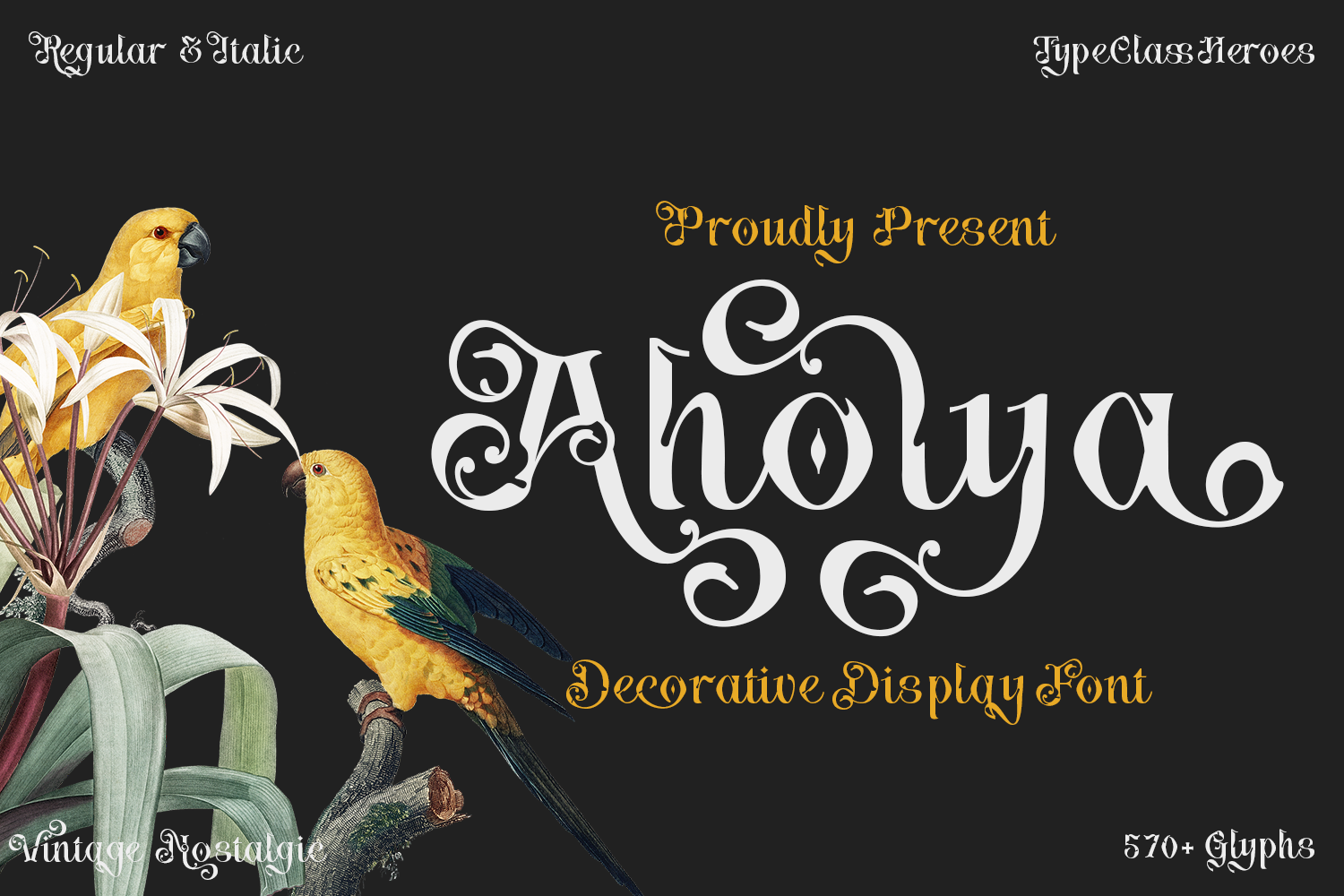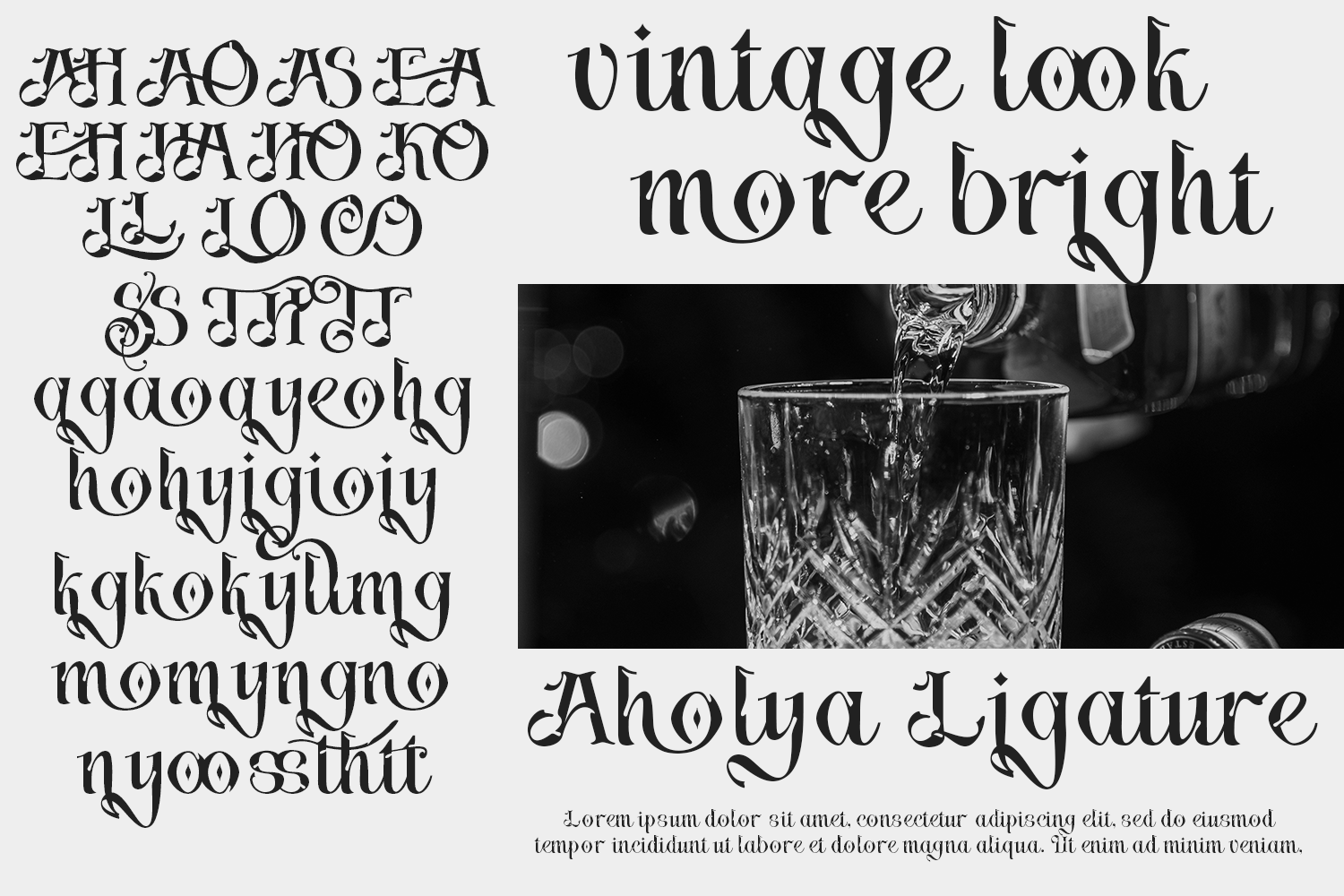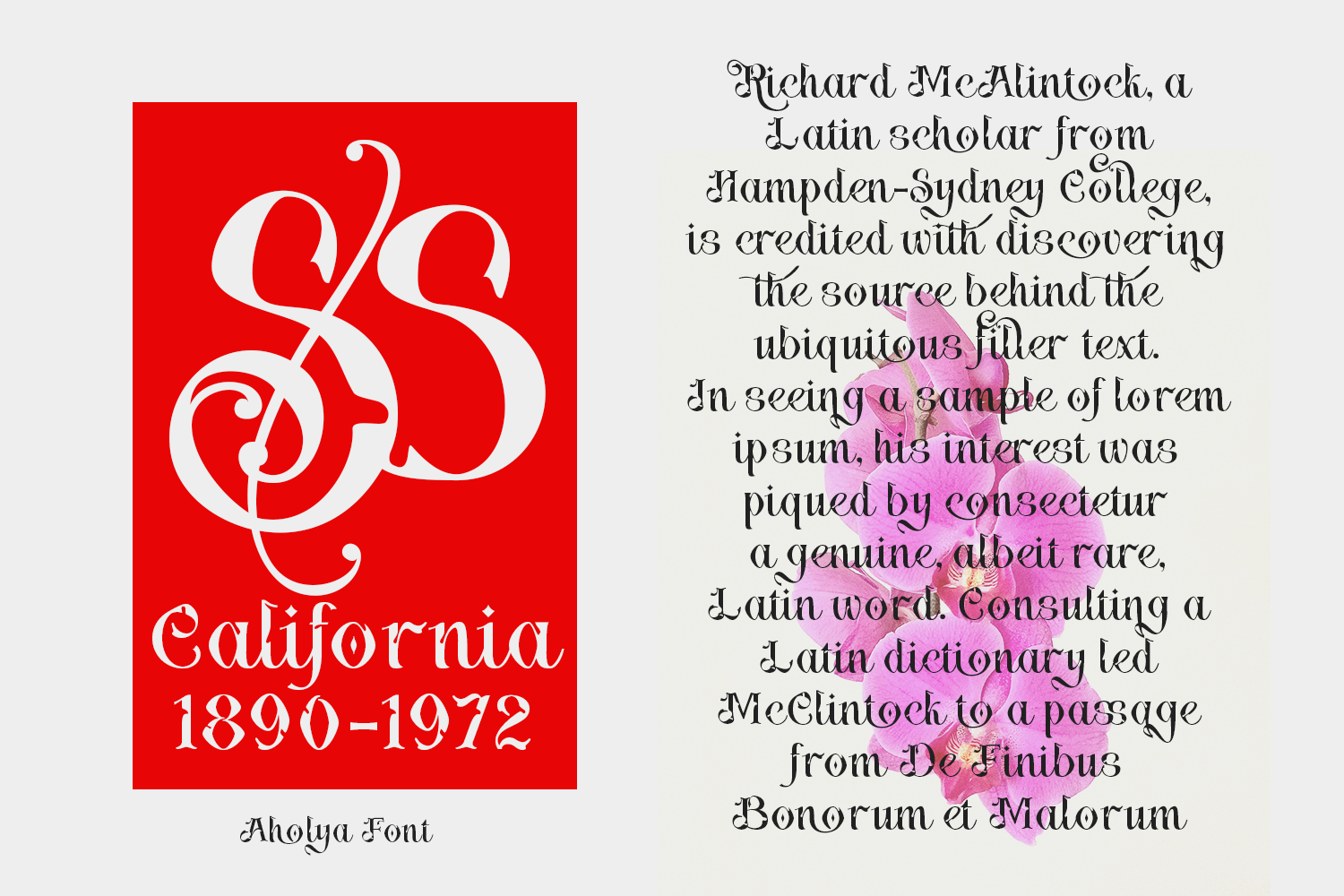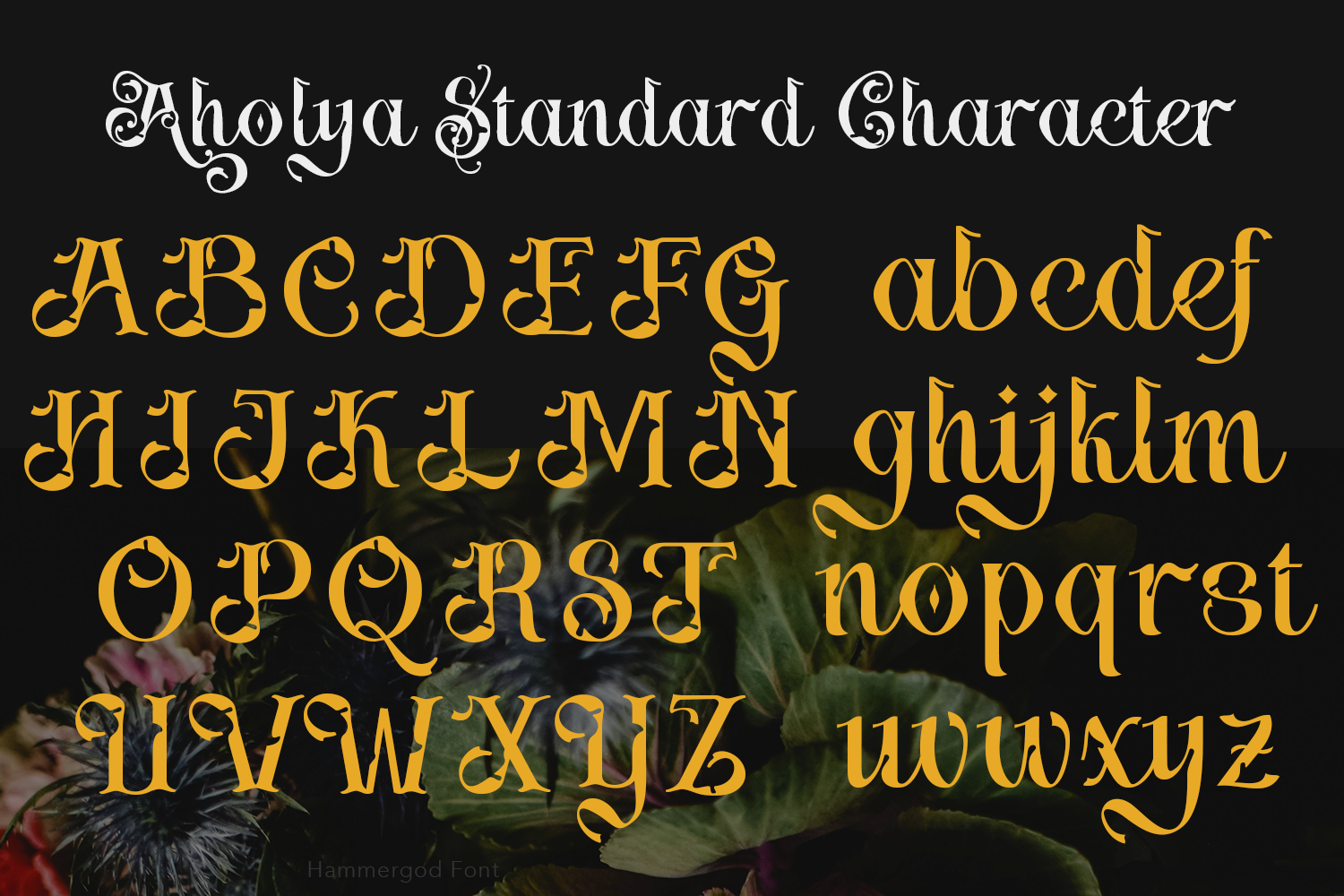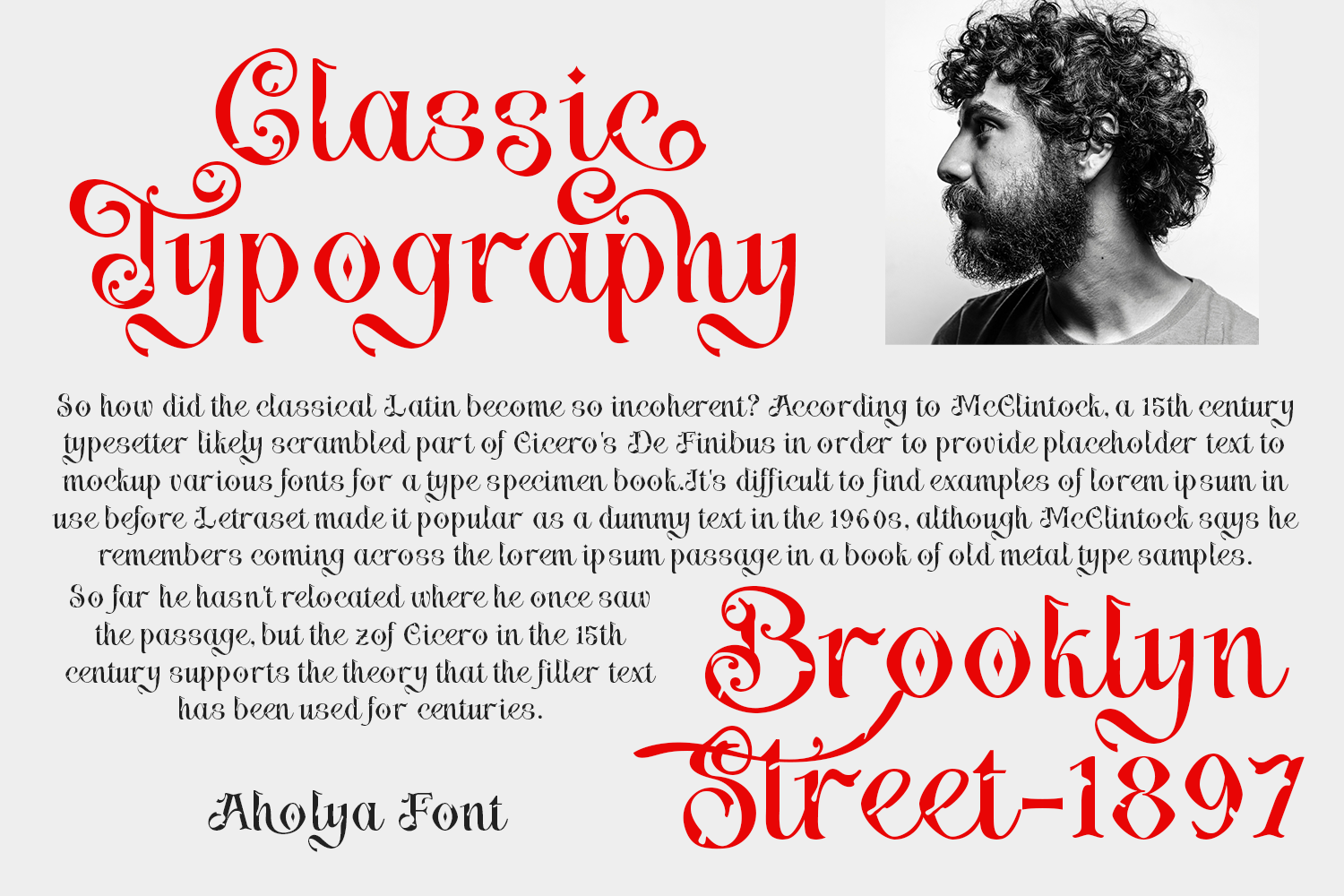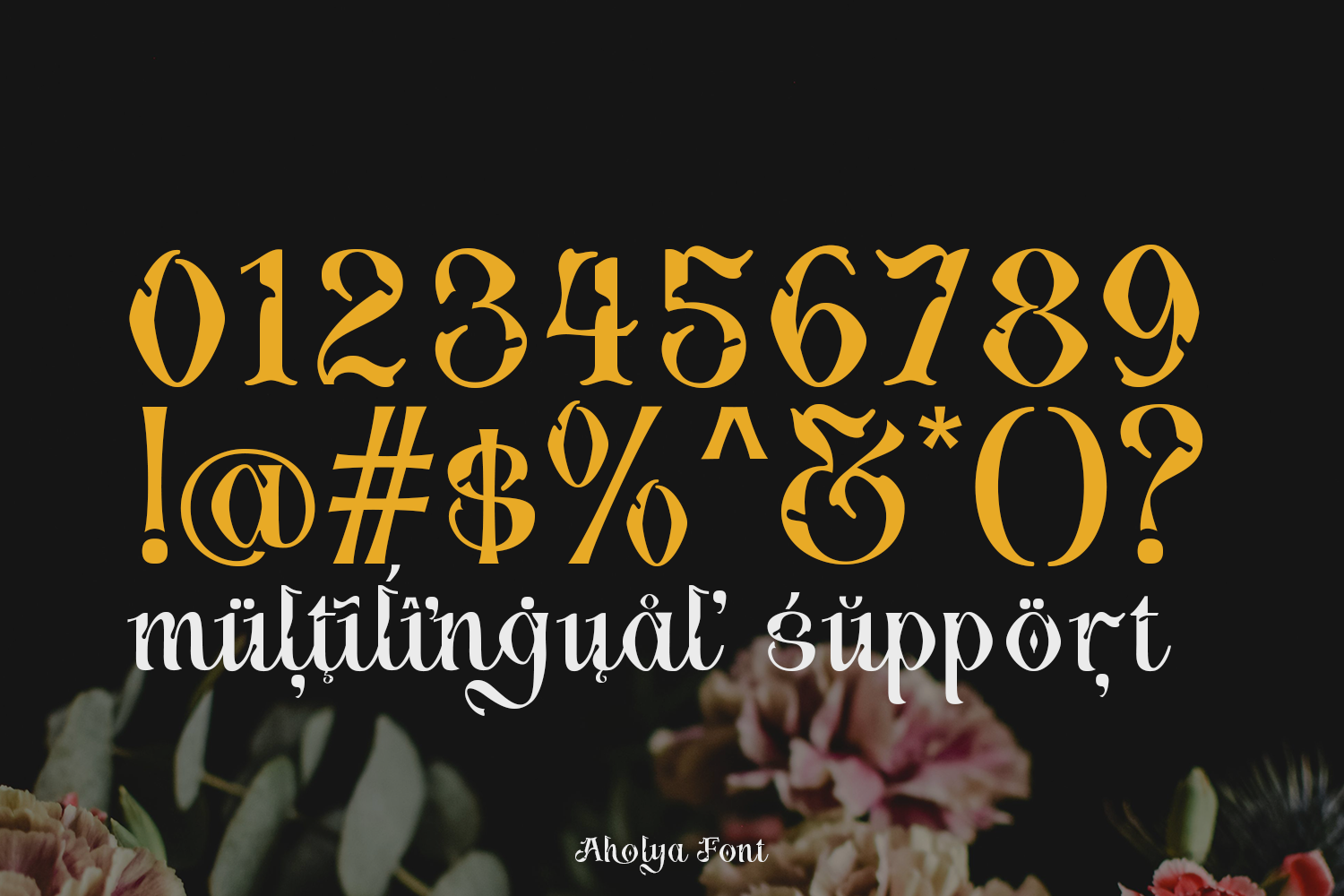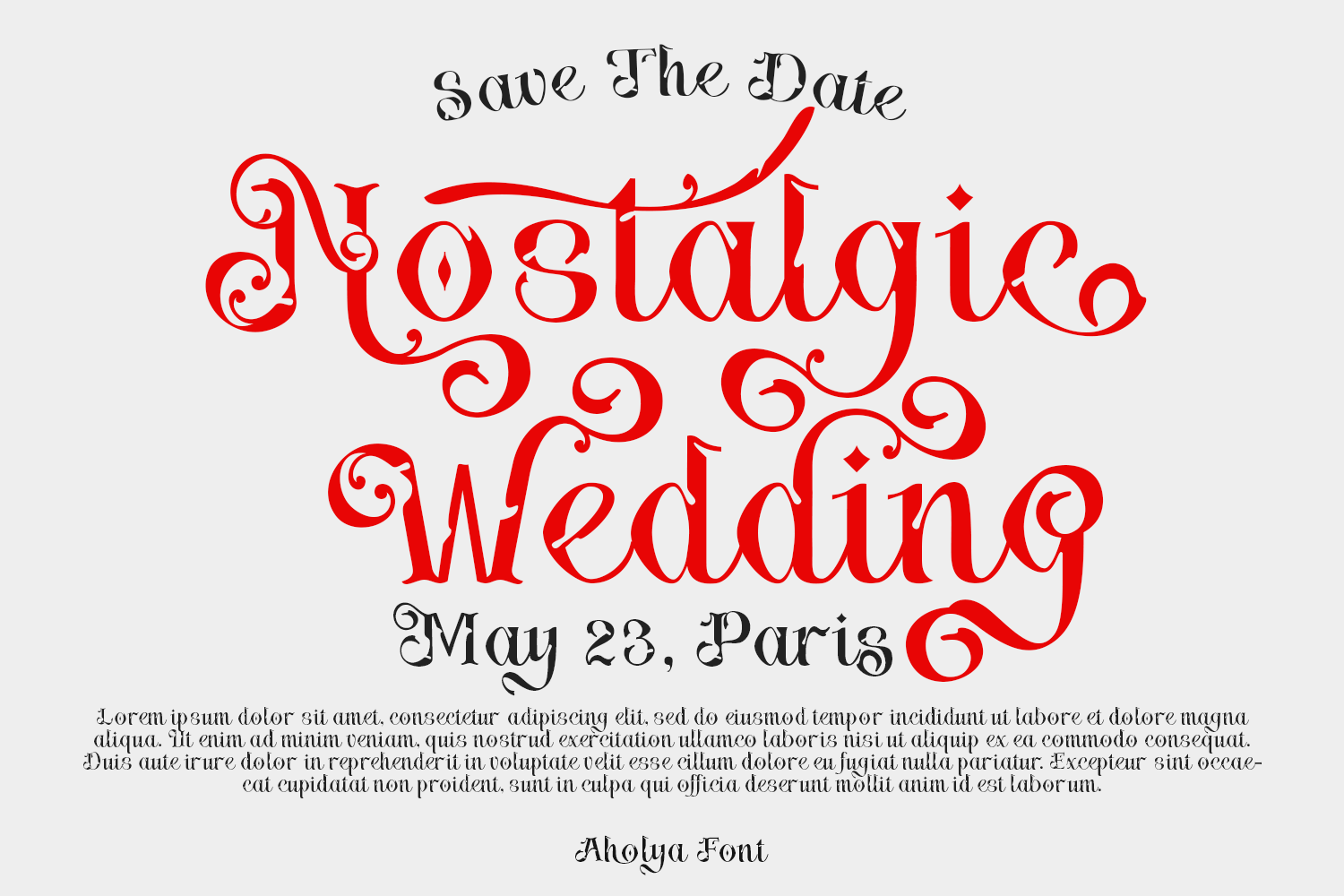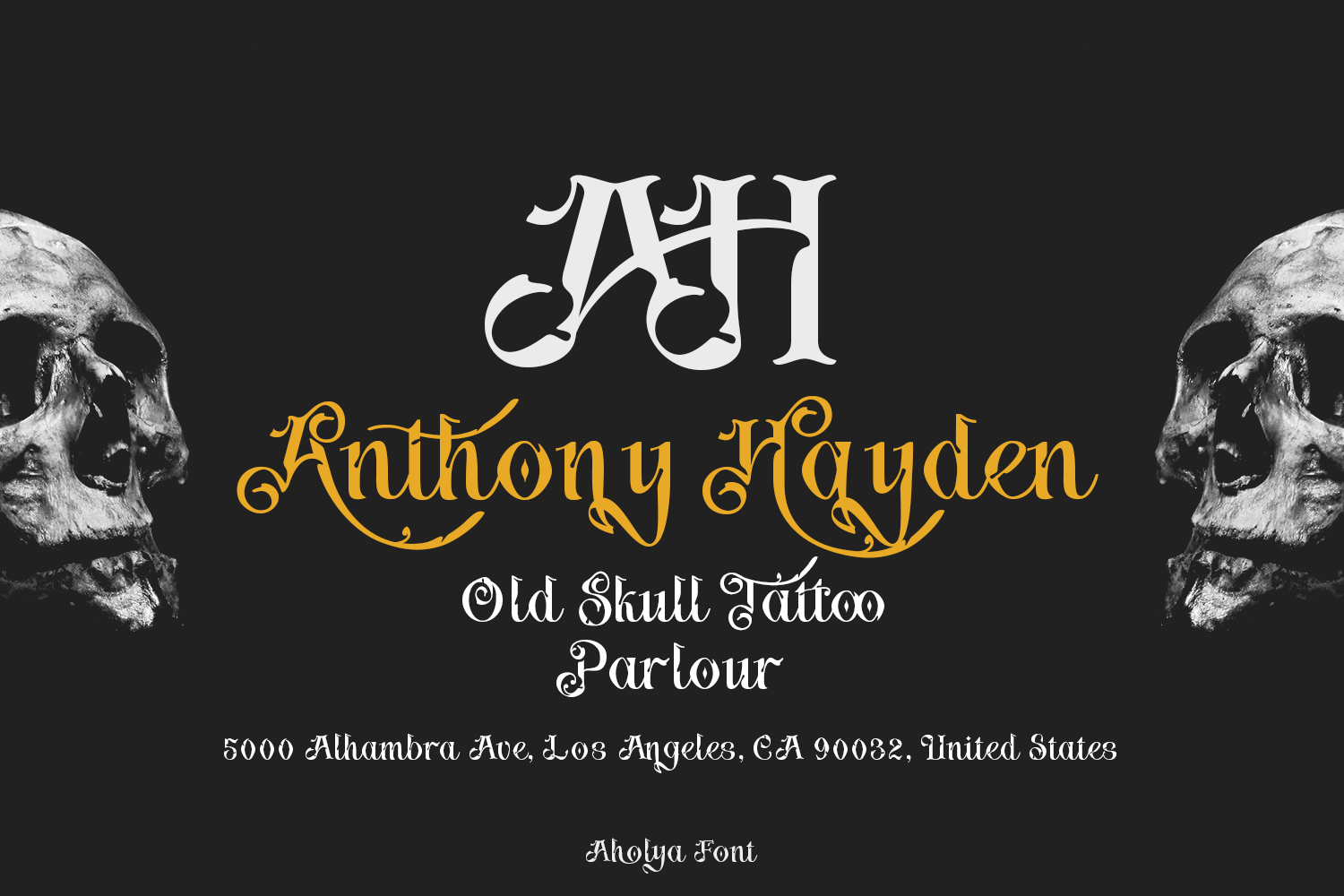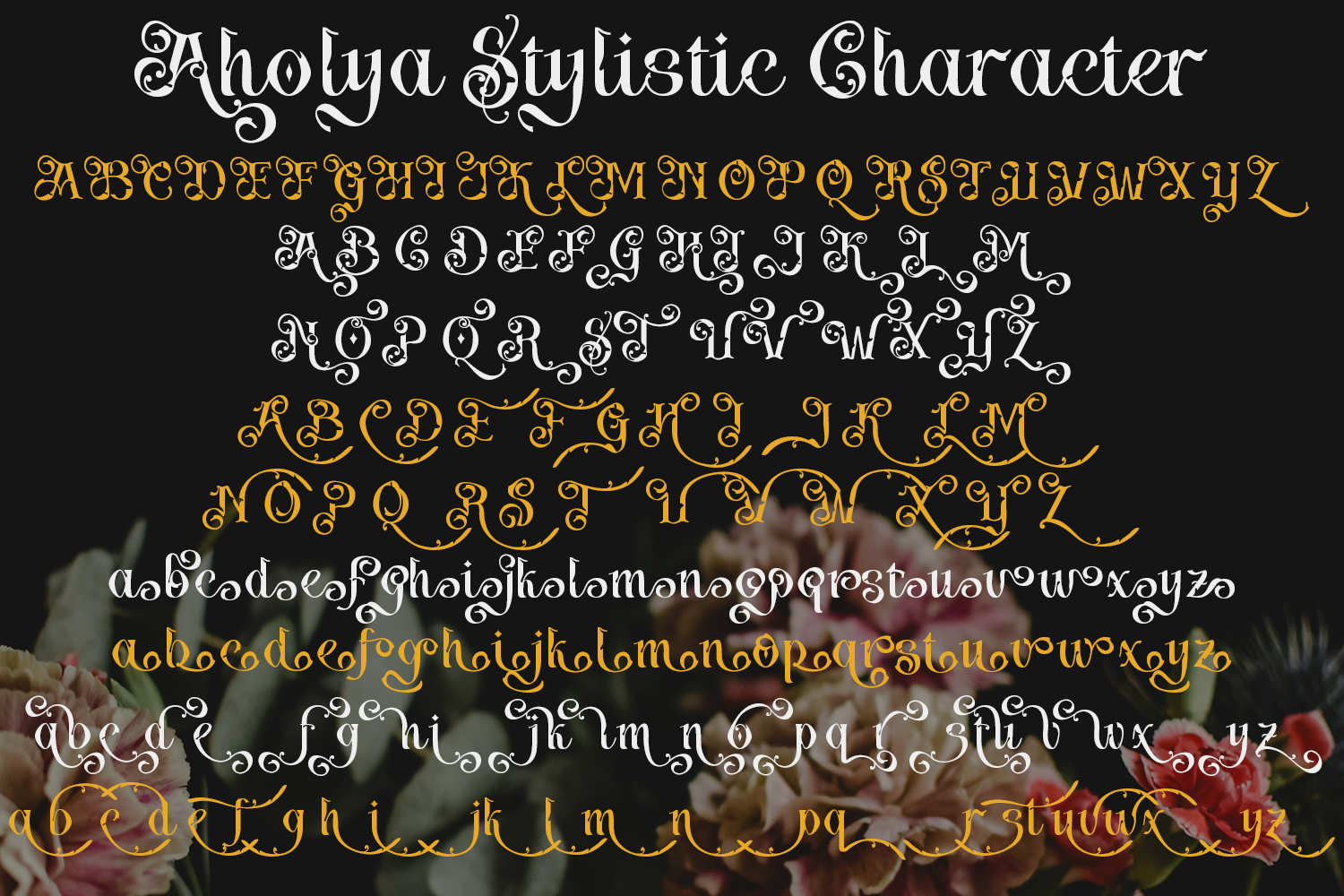
Aholya – Decorative Display Font
Aholya is a bold classic will create a design that is gorgeous and still looks modern and elegant with a romantic touch. Classy and readable, carefully creating every glyph, designing beautiful simple words with this font. Ideal for vintage logo, packaging, book cover, wedding invitation, brand identity, or anything old elegance touch.
• Uppercase & Lowercase
• Number & Symbol
• International Glyphs
• Alternative
• Ligature